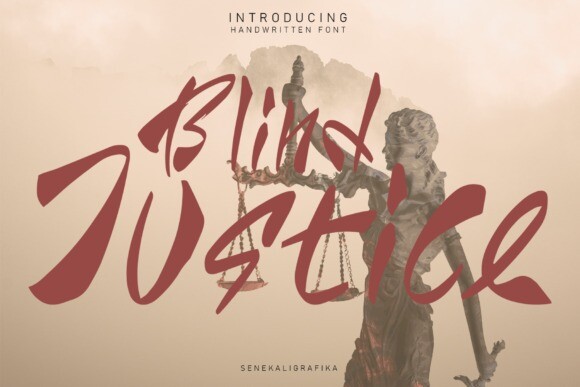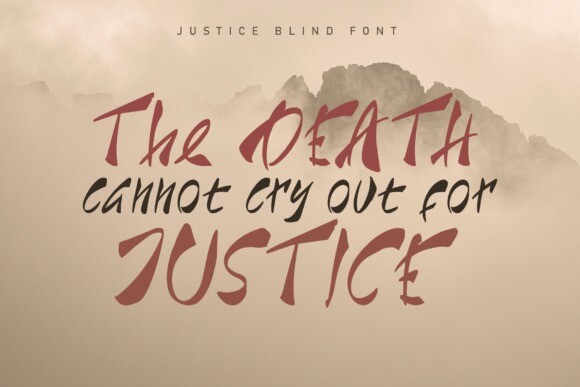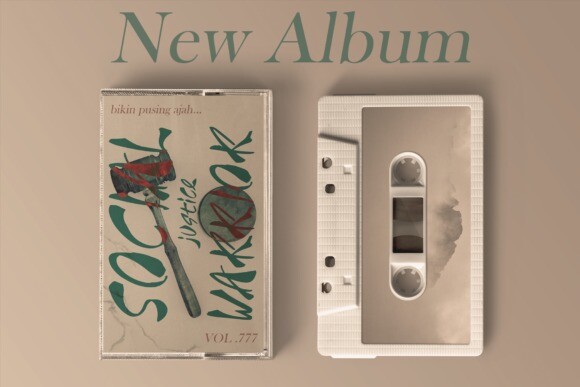
Justice Blind Font
Justice Blind is a signature-style handwritten font with hard strokes that create an instant unique sensation. Take your creative projects to the highest level with this font!
This font will help you create special and touching typographical designs for your headings, flyers, product packaging, book covers, printed quotes, logos, and more.